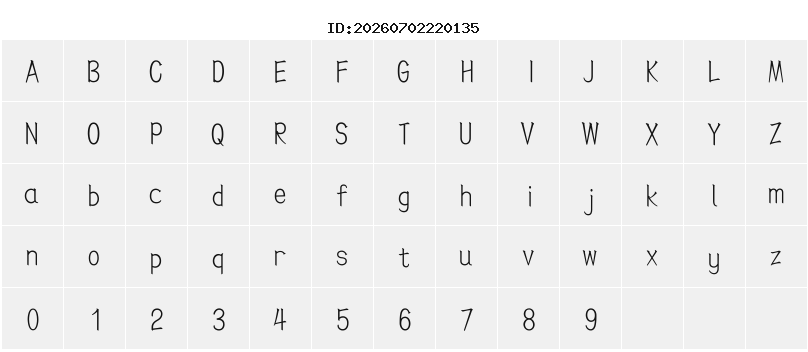
• Font Name: 152-上首南枝体
• Font ID: 152-SS Xi Nan Zhi Ti:Version 6.00
• Full Font Name: 152-上首南枝体
• Version: Version 6.00 May 31, 2022
• PostScript Name: 152-SSXiNanZhiTi
• Character Count: 7569
• Manufacturer: 上首造字
About 152-上首南枝体.ttf
152-上首南枝体.ttf is a modern, elegant sans-serif font designed for ultimate readability and visual harmony. Perfect for branding, headlines, web design, and print materials.